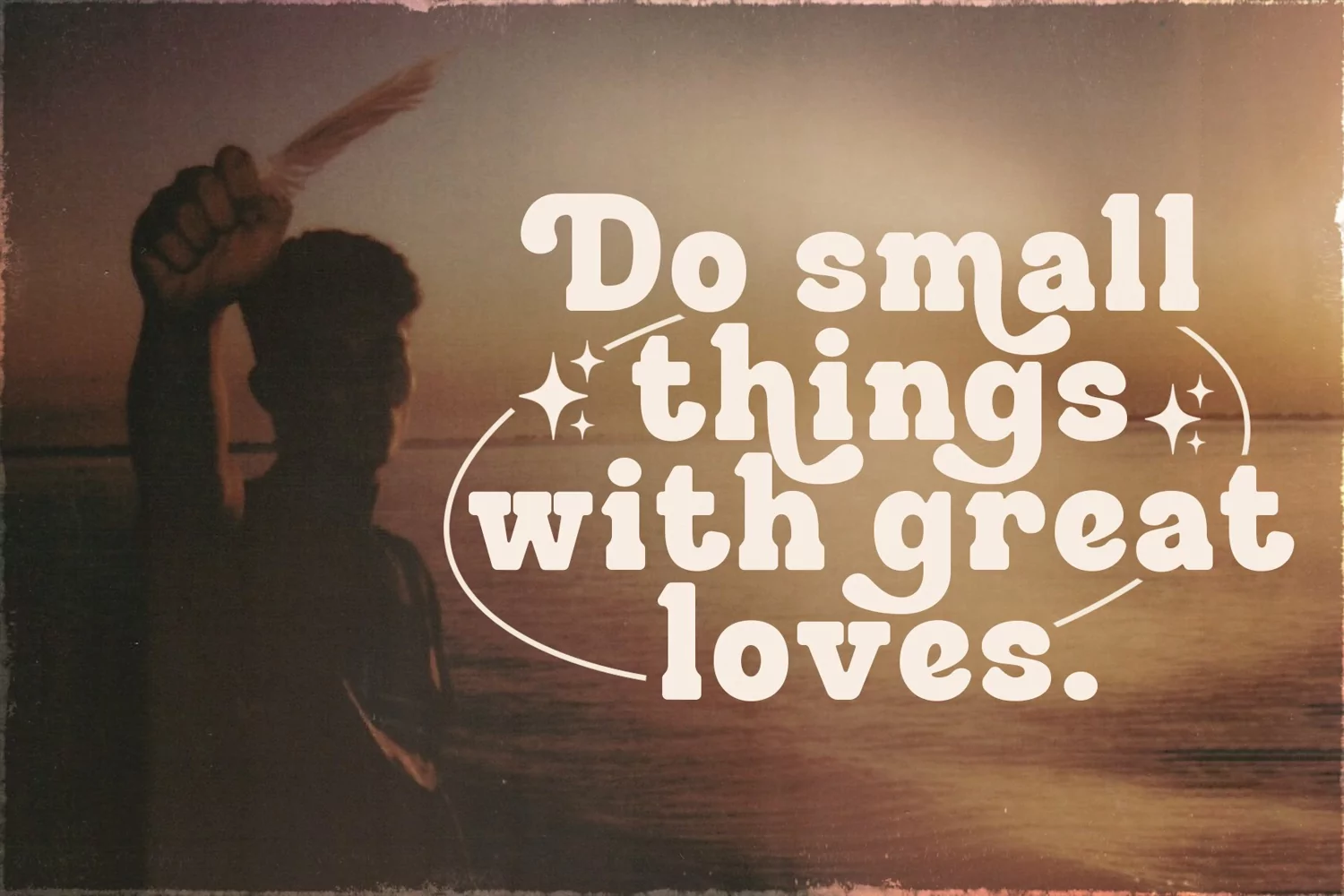
Good is a handrawn display typeface. Perfect for display, poster, quotes, film, craft needs, book cover, business card, packaging, merchandise, branding, logo, logotype, header, title, and many more.